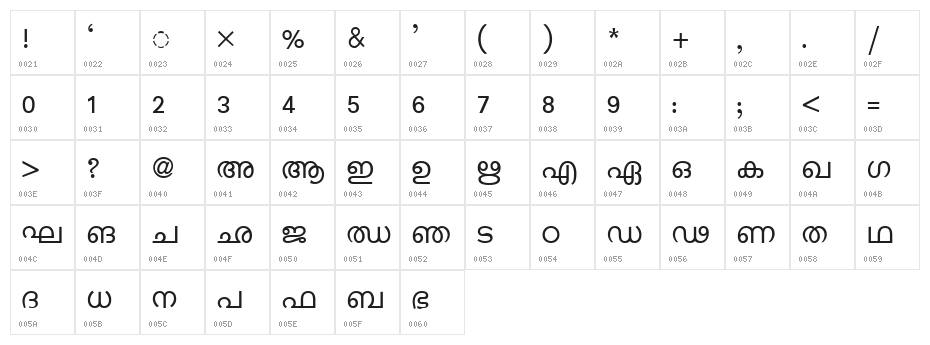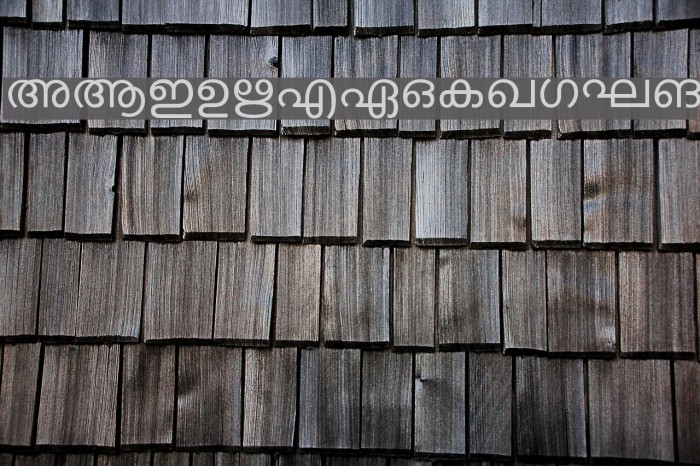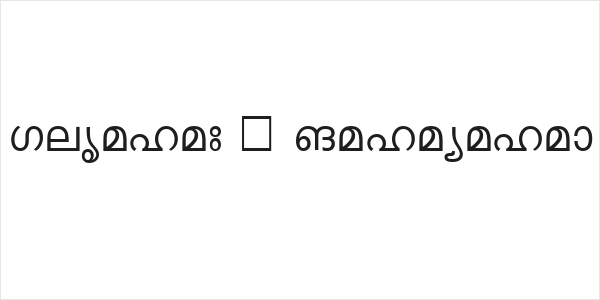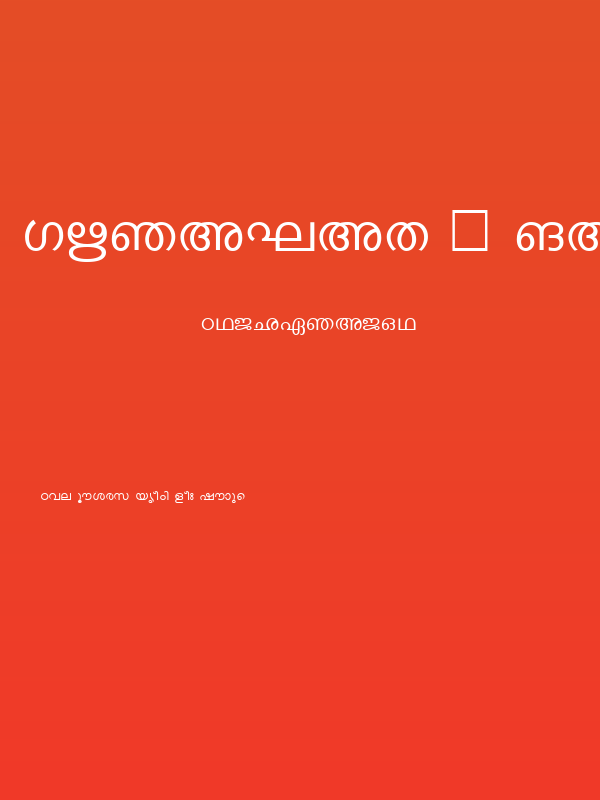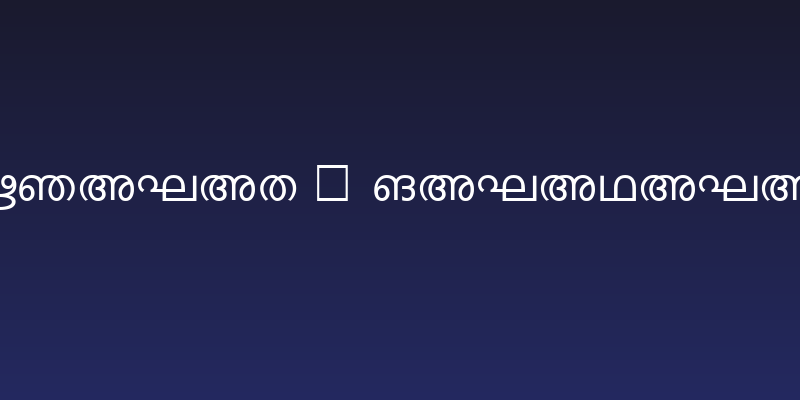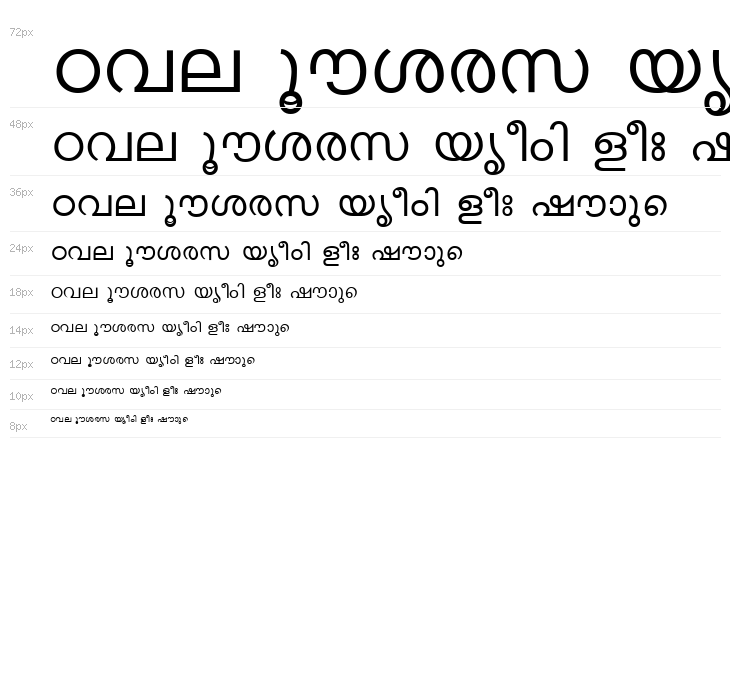
Keralax - Malayalam Font
Keralax - Malayalam Description
This font is a modern and clean typeface designed for the Malayalam script. It features smooth curves and balanced proportions, making it highly readable. The characters are well-spaced, ensuring clarity in both digital and print formats. The numerals and special characters are designed to complement the script, maintaining a cohesive look throughout. This font is versatile, suitable for a variety of applications, from formal documents to creative projects.